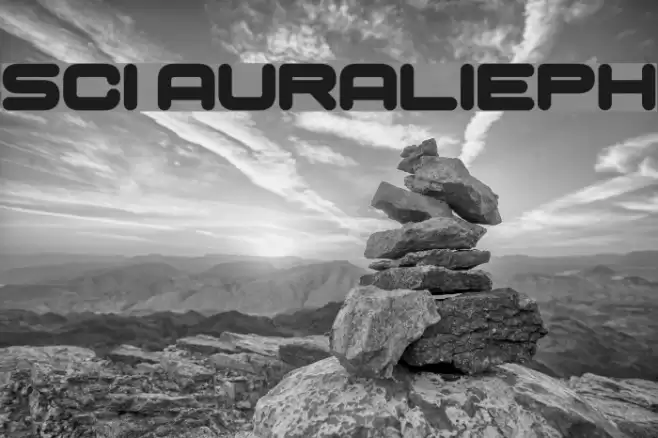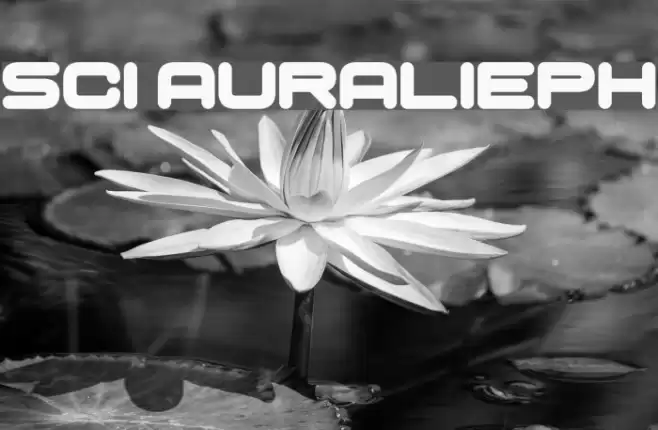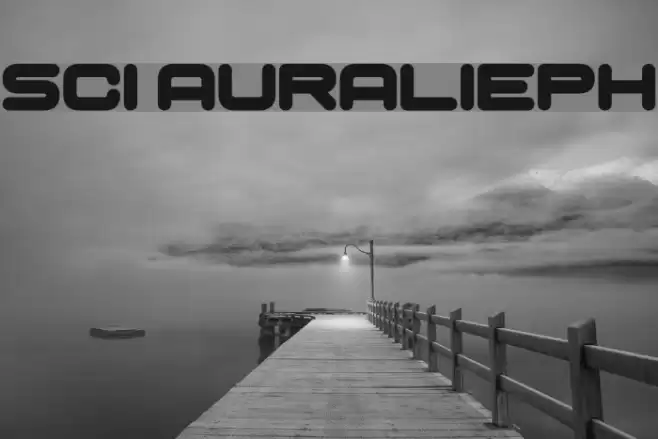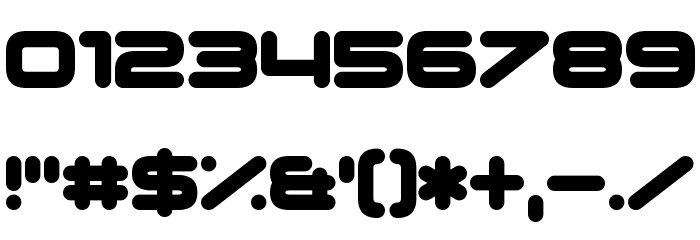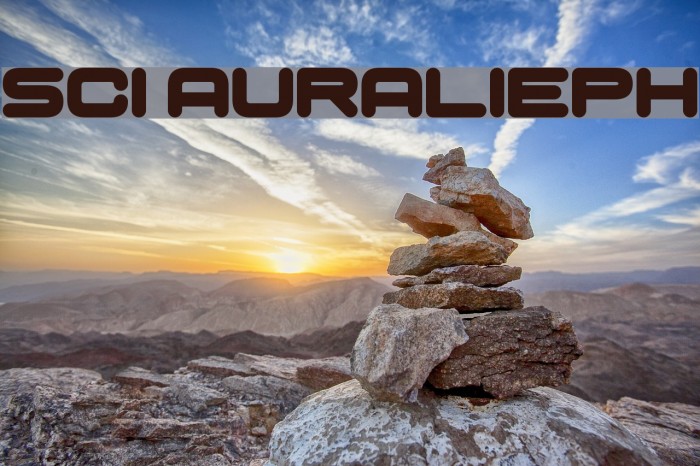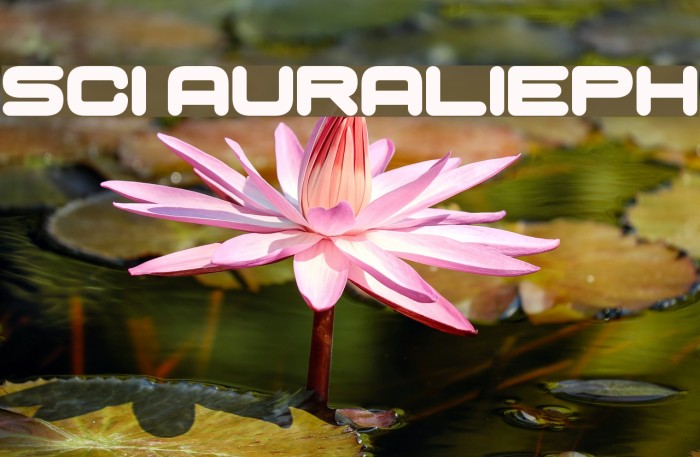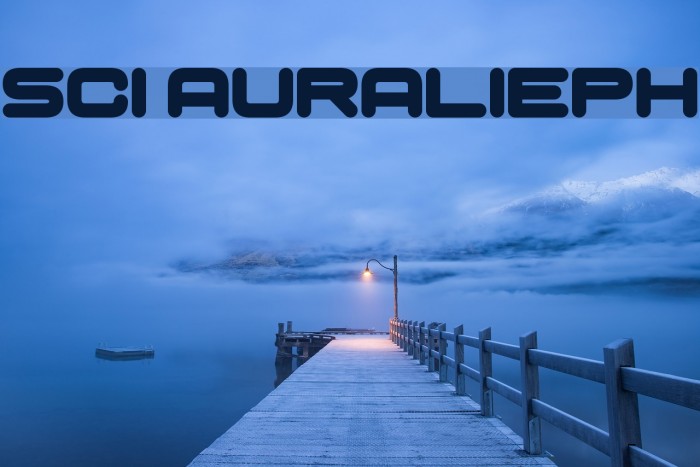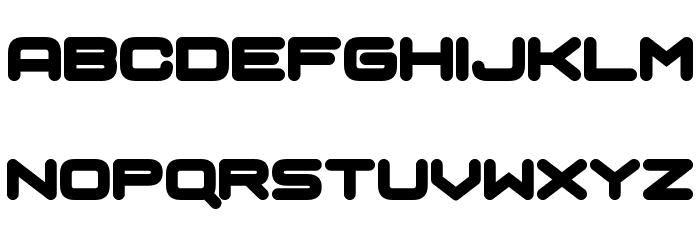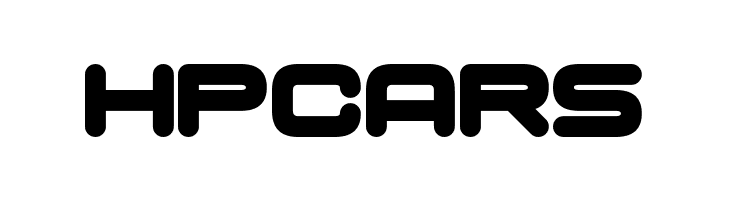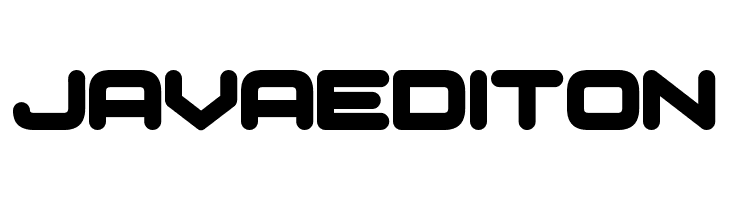
Sci Auralieph Font
Sci Auralieph Description
This font features a futuristic and bold design, characterized by rounded edges and a uniform thickness throughout each character. The letters are wide and have a geometric feel, giving them a modern and sleek appearance. The numbers and special characters maintain the same stylistic approach, ensuring consistency across all elements. The font's design is both eye-catching and legible, making it suitable for various creative applications. Its distinct style is ideal for projects that require a contemporary and tech-inspired look.
A futuristic, bold font with rounded edges and a geometric style from Uncategorized fonts.
- Proposed Projects: Ideal for technology branding, sci-fi themed designs, video game interfaces, and modern advertising campaigns.
- Width: Expanded